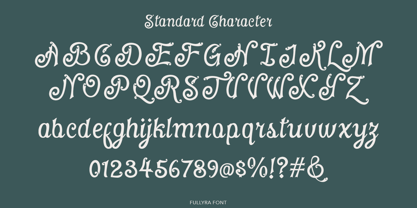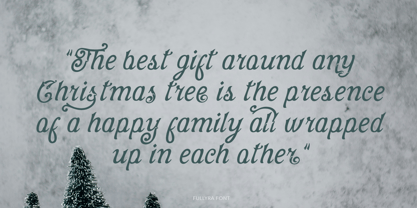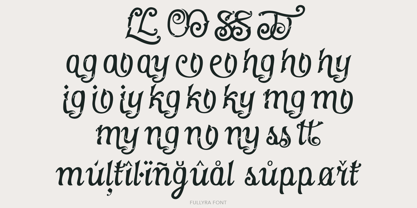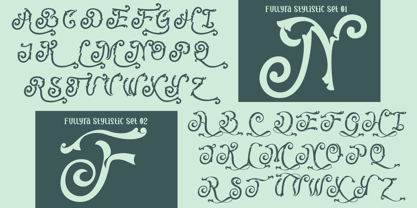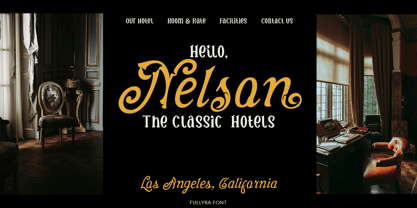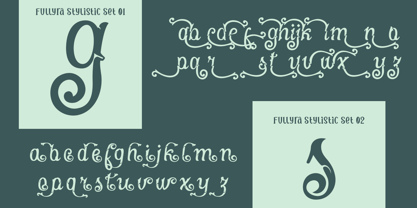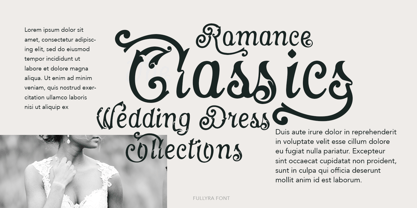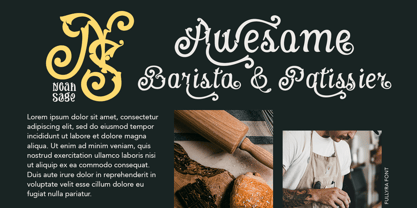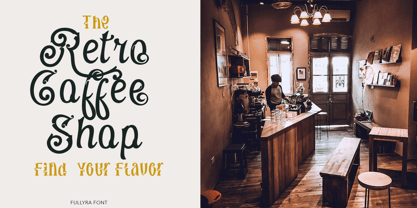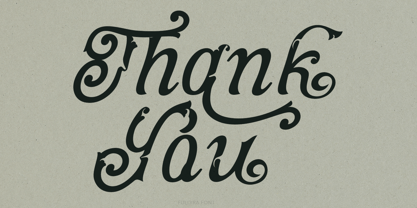
Fullyra
von TypeClassHeroes
Die Schriftfamilie Fullyra wurde von Suandana ipandemade entworfen und von TypeClassHeroes veröffentlicht. Fullyra enthält 2 Stile und Familienpaketoptionen.
Hello I'm really excited to introduce Fullyra is a script with classic feel become an elegant wave and curly and this font has the potential to bring each of your creative ideas to the highest level. With style combine with ligatures and special alternative glyphs so you can create a lots with layouts and compositions. Fullyra brings a touch of luxury and bespoke custom typography to logos, websites, social media quotes, wedding branding, and many more.